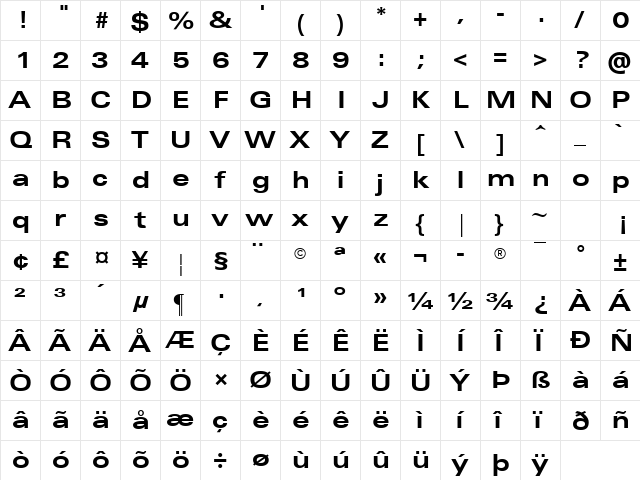
Univers Extended Bold
Design Context for Univers Extended Typeface
Univers Extended is a composed and adaptable typeface that performs quietly and consistently across a wide range of design contexts. The heavy weight commands attention and anchors typographic hierarchies.